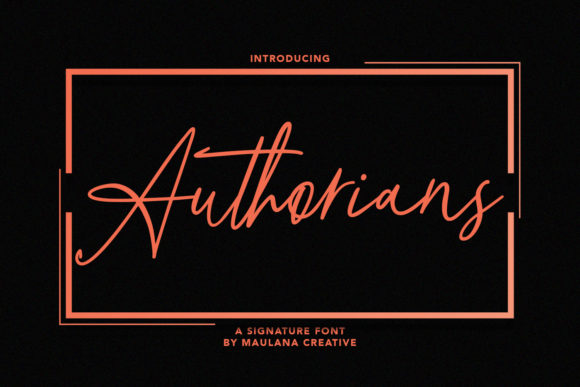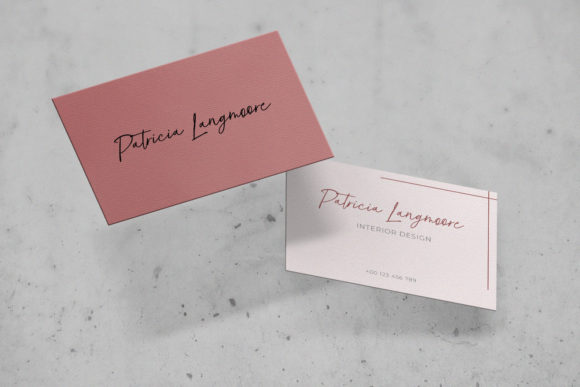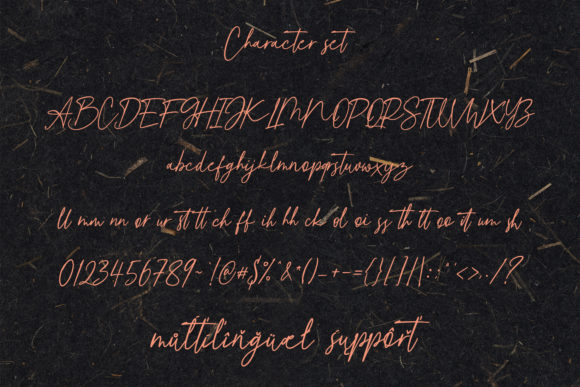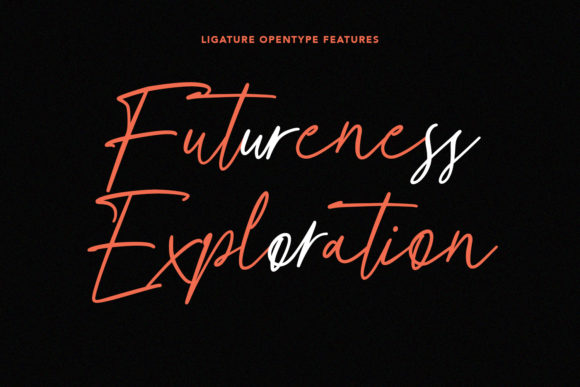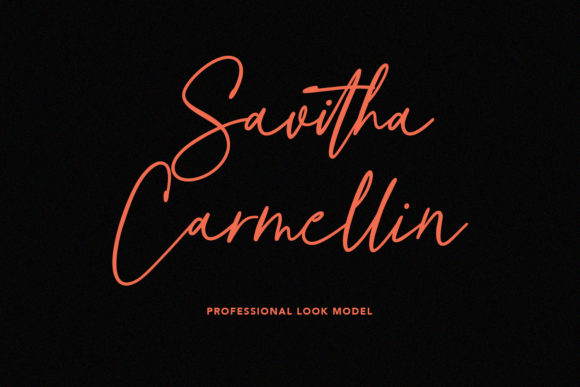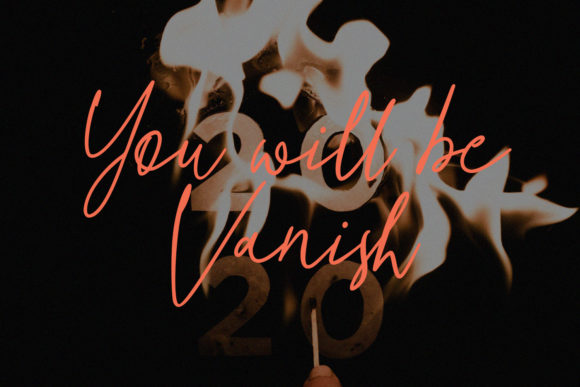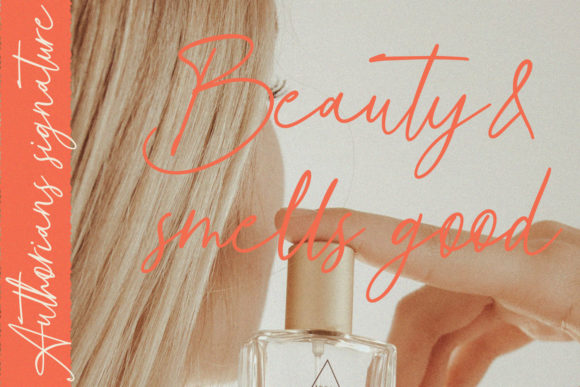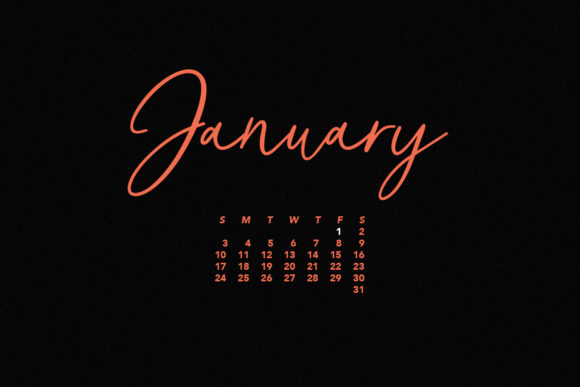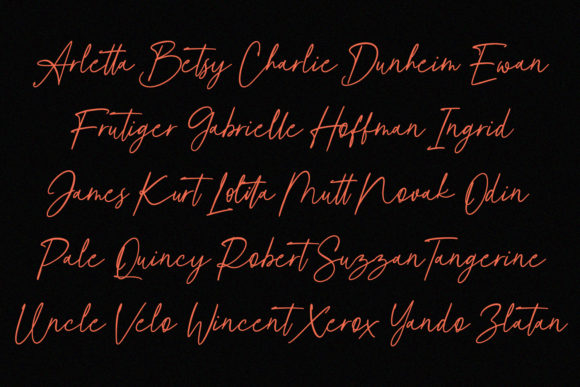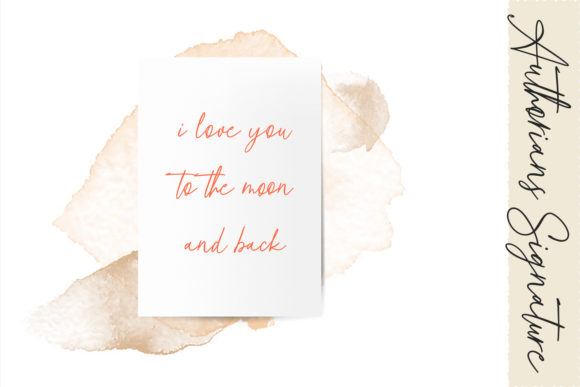
Authorians Font
About Authorians Font
“Authorians” sounds like a versatile and sophisticated handwritten font that can add a touch of casual elegance to a wide range of design projects. Its combination of casual and neat elements creates a balanced and harmonious look, making it suitable for both formal and informal designs.
When using Authorians in your projects, you’ll notice how it effortlessly blends into various contexts. In formal settings, such as business cards, invitations, or professional presentations, the font’s elegance and orderly arrangement of letters will bring a sense of refinement and professionalism.
Conversely, in non-formal designs like creative posters, social media graphics, or personal projects, the font’s casual charm will infuse a sense of creativity and approachability, engaging the audience in a friendly and relatable manner.
The neat arrangement of letters in Authorians ensures readability and clarity, making it easy for viewers to absorb the message or information presented. This is essential for any design to effectively communicate its intended message.
Additionally, Authorians’ handwritten nature can evoke a personal and authentic feel, creating a genuine connection with the audience. Its natural strokes and flowing style can convey a sense of human touch, which can be particularly appealing for projects that aim to convey heartfelt messages or personal narratives.
The font’s versatility extends to various design elements, such as quotes, branding materials, book covers, and more. Its ability to adapt and look outstanding in different contexts makes it a valuable asset for designers seeking a reliable and charming typeface.
When using Authorians, consider pairing it with complementary fonts for titles, subtitles, or body text to create a well-balanced and visually appealing design. Experiment with different font weights and sizes to achieve the desired emphasis and hierarchy in your layout.
In conclusion, Authorians is a delightful and versatile handwritten font that seamlessly blends casual elegance with neat arrangement. Its ability to shine in both formal and non-formal designs makes it a valuable addition to any designer’s toolkit. Embrace the charm and sophistication of Authorians in your creative projects and watch it elevate your designs to a whole new level.